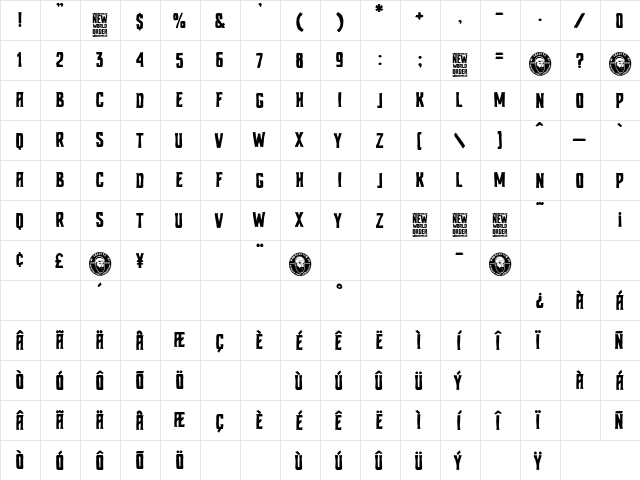
New World Order Regular
| Designer | Woodcutter Manero |
Design Context for New World Order Typeface
New World Order is a composed and adaptable typeface that performs quietly and consistently across a wide range of design contexts.